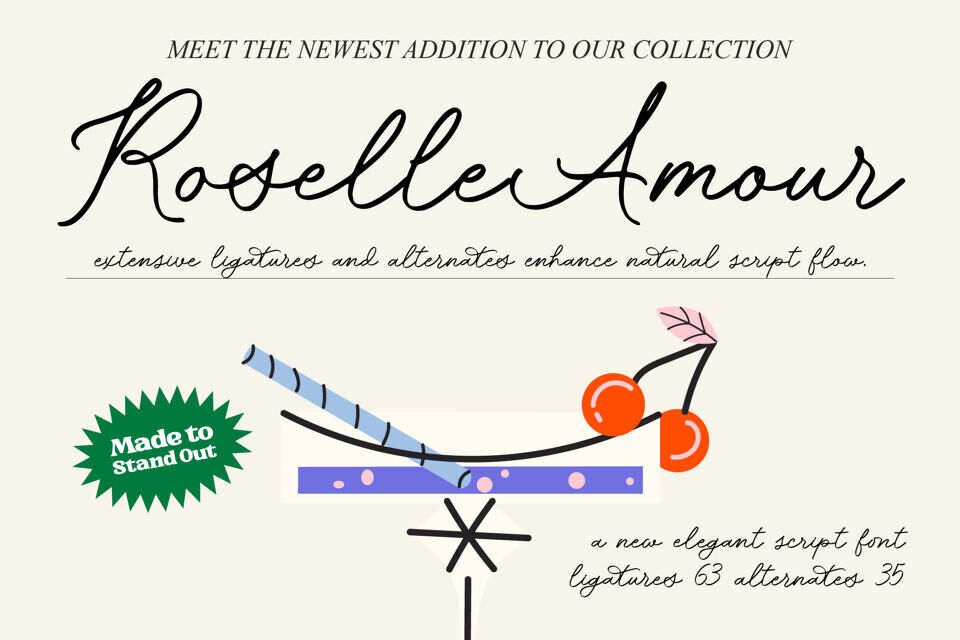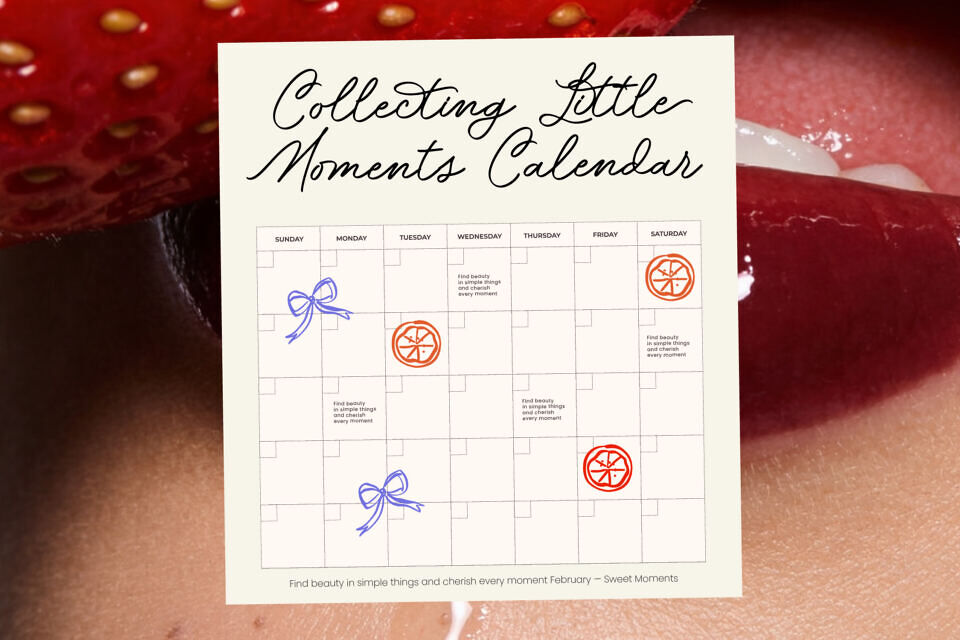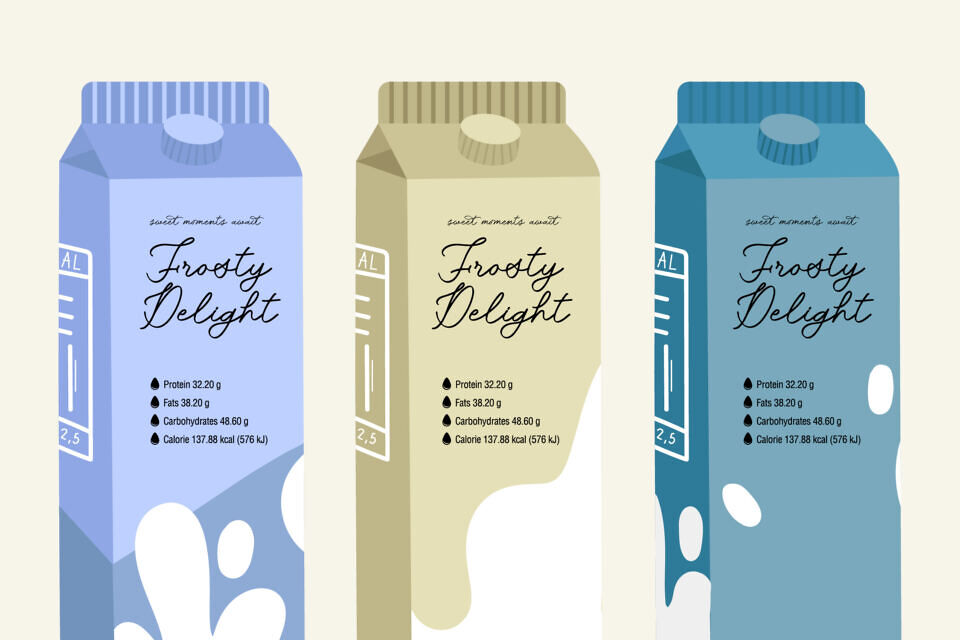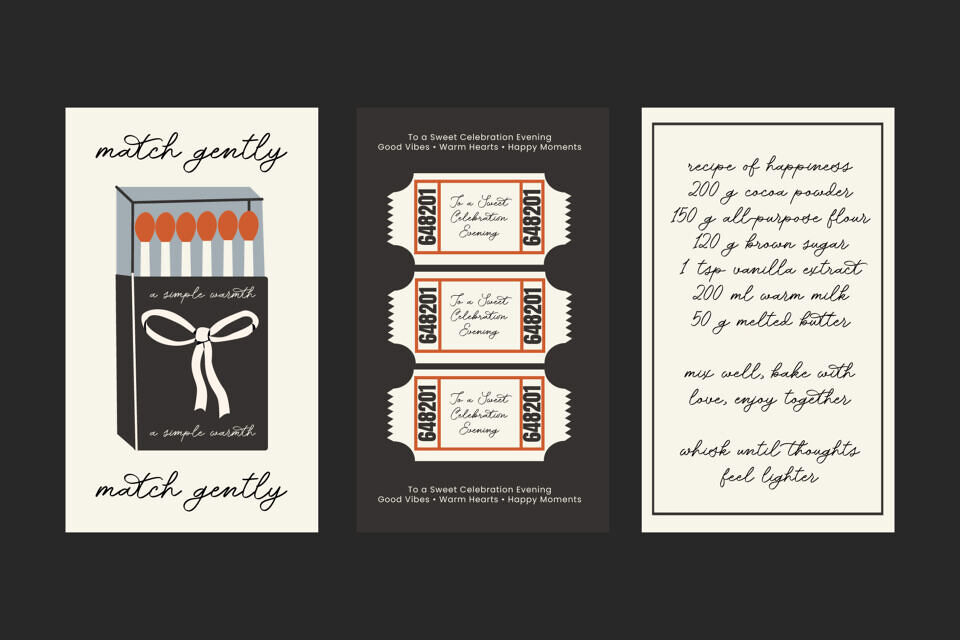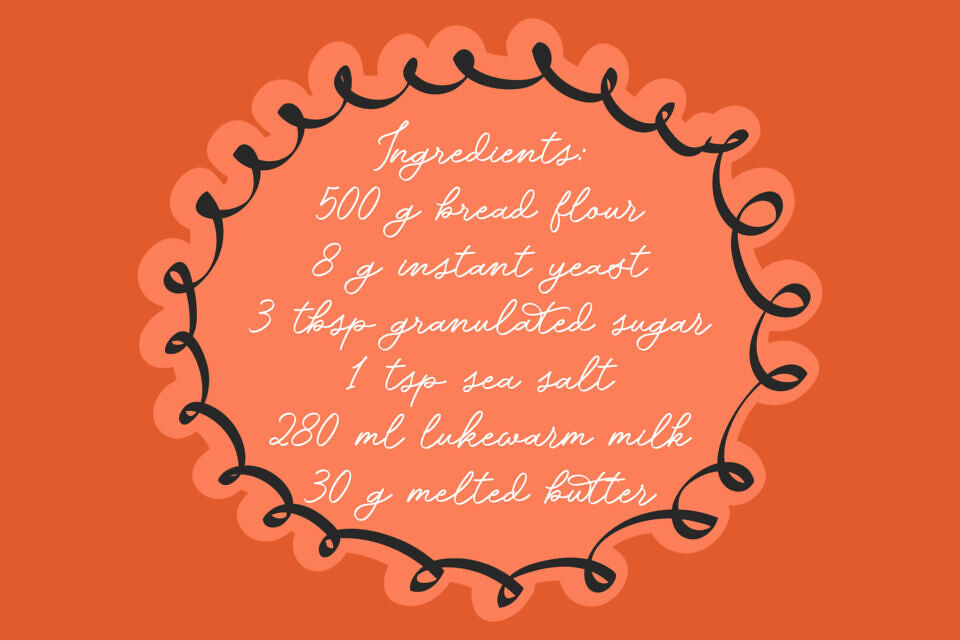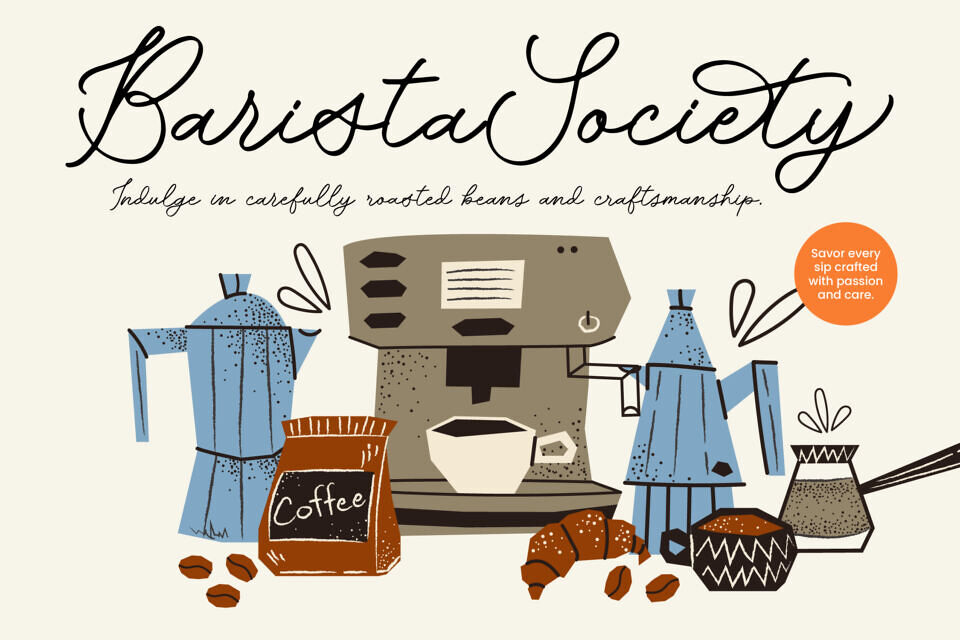
Roselle Amour Font
Add a touch of sophistication to your designs with a elegant script font. This meticulously crafted typeface combines handcrafted charm with modern luxury, delivering a high-end feel.
With extensive OpenType features, it mimics natural handwriting, creating a bespoke look. Its multilingual support makes it versatile for global projects, while its luxurious style is perfect for high-end branding, packaging, and editorial design, elevating your brand identity with refinement and visual excellence.